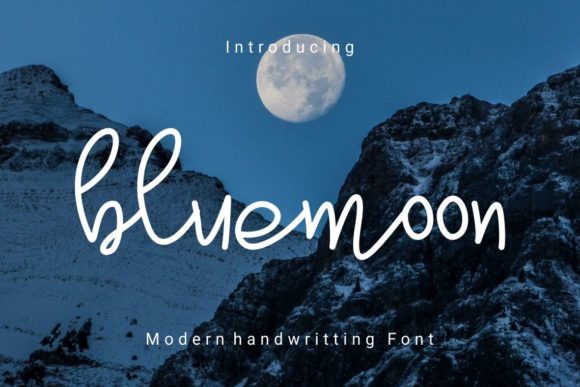
Bluemoon Font: A Harmonic Dance of Letters, Perfect for Music Poster Designs
Enter the world of Bluemoon, a modern handwritten font that exudes both elegance and charm. Its unique groove and effortless signature style create a harmonious dance of letters, capturing the essence of melody and rhythm.
Crafted by the skilled hands of MualanaDesign, Bluemoon is a symphony of curves and strokes, evoking a sense of nostalgia and warmth. It's the perfect font for music poster designs, bringing life to your creative expressions.
Let your designs sing with Bluemoon's enchanting personality. Whether it's a poster for a local concert, a festival flyer, or an album cover, Bluemoon will elevate your words and make them resonate with your audience.
Dive into the depths of Bluemoon's versatility. It's a font that effortlessly complements a wide range of designs, from logos and signatures to quotes and badges. Its graceful lines add a touch of sophistication to packaging designs, blog headlines, and any other project you can dream up.
Bluemoon is more than just a font; it's an inspiration. Its organic flow and natural rhythm will spark your creativity and ignite your imagination. Transform your designs into captivating masterpieces with Bluemoon's enchanting aura.